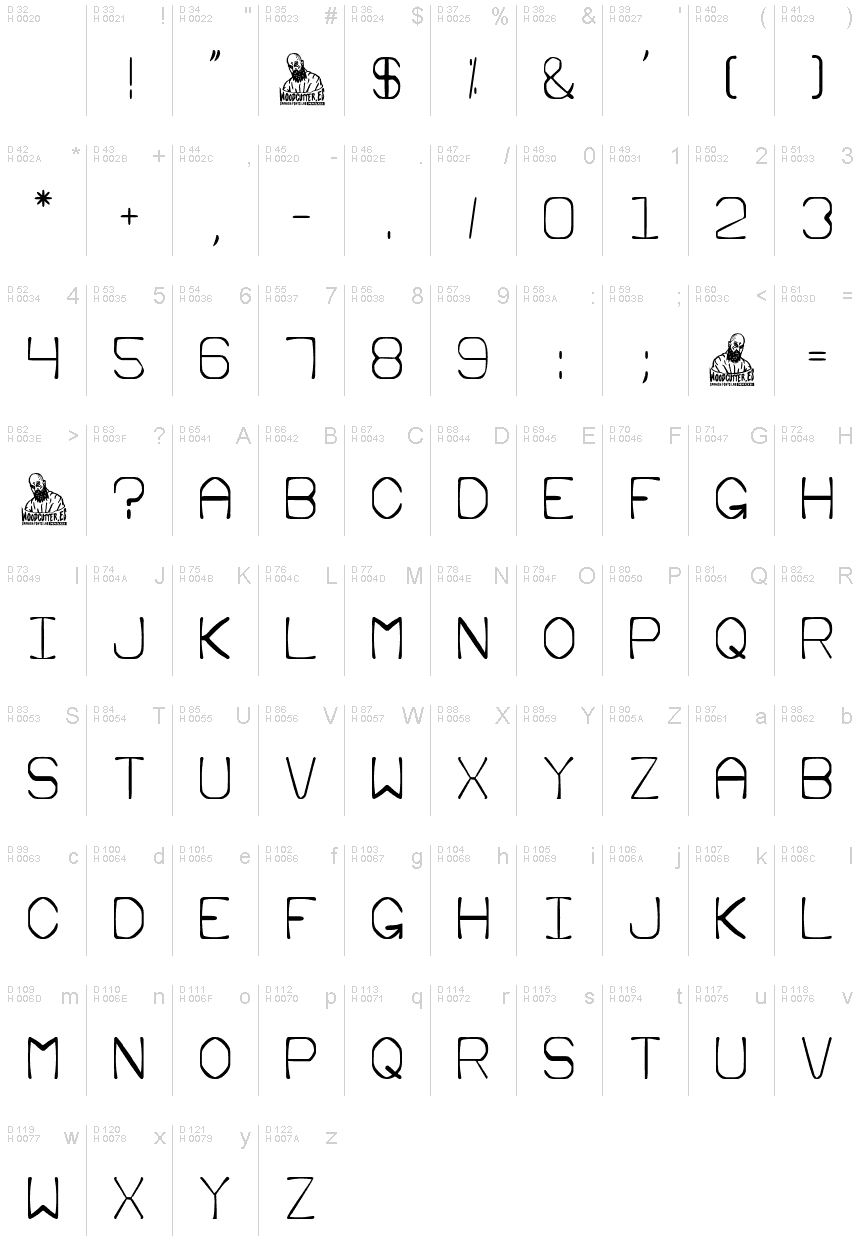
Lunar Mission
Lunar Mission, designed by Woodcutter, is a captivating display font that adds a touch of modern sophistication to any project. With its semi-light weight and semi-expanded width, this font effortlessly combines elegance and readability.
Perfect for branding materials, including logos and packaging designs, Lunar Mission brings a sense of space-age exploration to technology-related projects. Its clean lines and gentle curves also make it an excellent choice for editorial layouts such as magazine covers or book titles.
Let Lunar Mission take your design endeavors to new dimensions with its unique style and versatility.